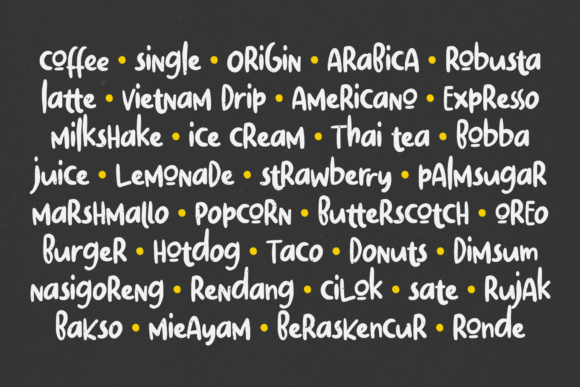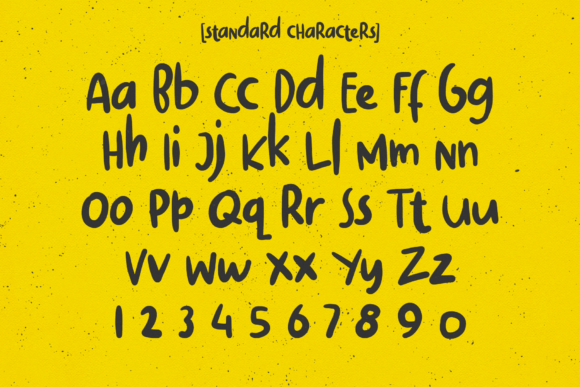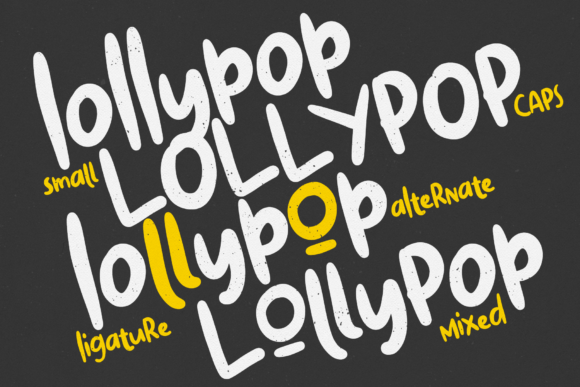
Introduction to Bustanist Font
Bustanist is a playful yummy font with extra street food graphics.
It will add a playful touch to any crafting project .